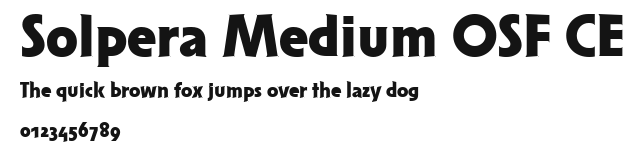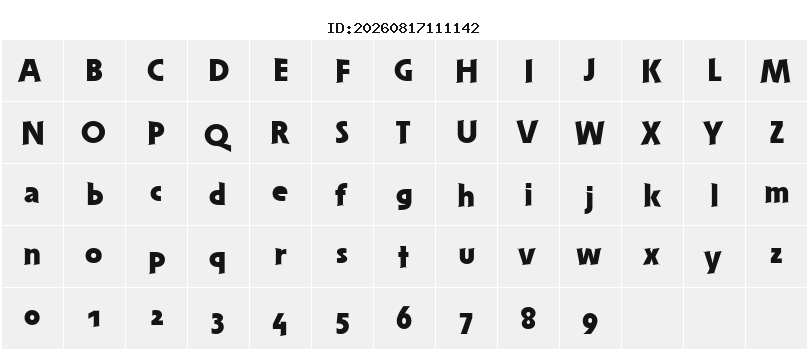
Solpera Medium OSF CE Preview
• Font Name: Solpera Medium OSF CE
• Font Style: Black
• Full Font Name: Solpera Medium OSF CE Black
• PostScript Name: SolperaMediumOSFCE-Black
About Solpera Medium OSF CE.ttf
Solpera Medium OSF CE.ttf is a modern, elegant sans-serif font designed for ultimate readability and visual harmony. Perfect for branding, headlines, web design, and print materials.